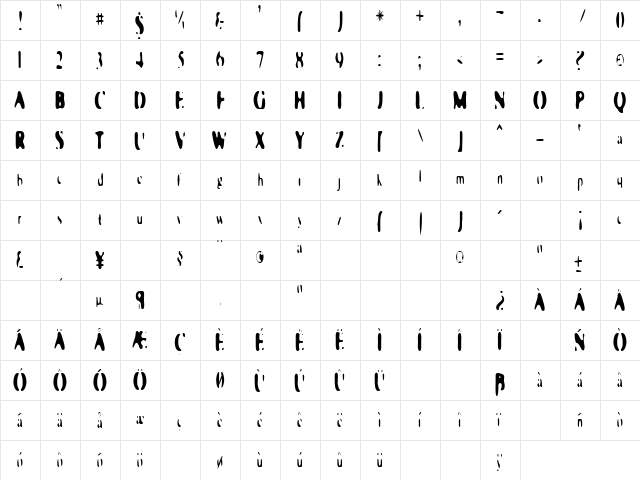
Galaxia Singularity Font Preview
Galaxia Singularity
Design Context for Galaxia Typeface
Galaxia is a composed and adaptable typeface that performs quietly and consistently across a wide range of design contexts.